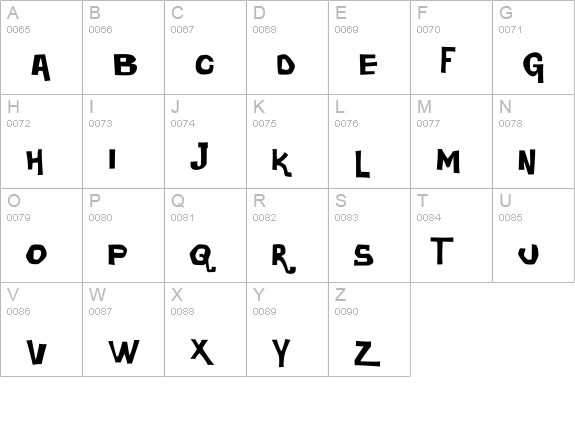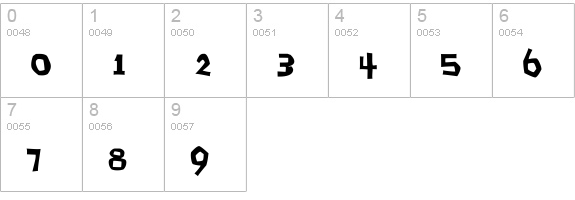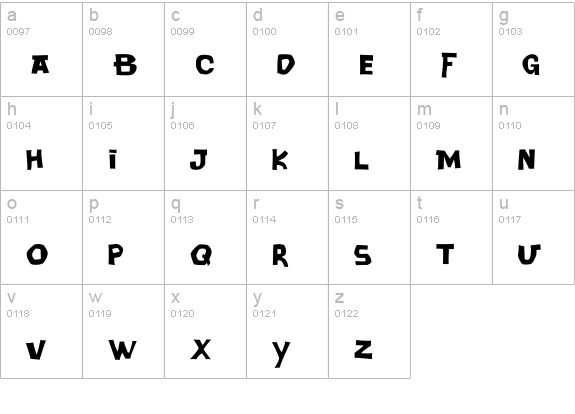
Introducing DaddyO Square font, a contemporary and versatile typeface that effortlessly captures the essence of retro design with a modern twist. This font is perfect for creating eye-catching headlines, striking logos, or adding a touch of vintage charm to any creative project. DaddyO Square features a unique square-shaped letterform, combining bold lines with subtle curves to create a visually captivating aesthetic. Its clean and well-defined characters exude confidence and style, making it an ideal choice for both print and digital applications. With its wide range of weights and styles, DaddyO Square offers endless possibilities for customization. Whether you're looking for a bolder and more impactful look or a softer and more delicate touch, this font has got you covered. The best part? DaddyO Square is absolutely free! You can easily download and start using this font today, thanks to its availability at FontsMarket.com. This means you can add a touch of retro flair to your designs without breaking the bank. So, why wait? Embrace the timeless appeal of DaddyO Square font and let your creativity soar. Download it now for free at FontsMarket.com and discover a whole new world of design possibilities.